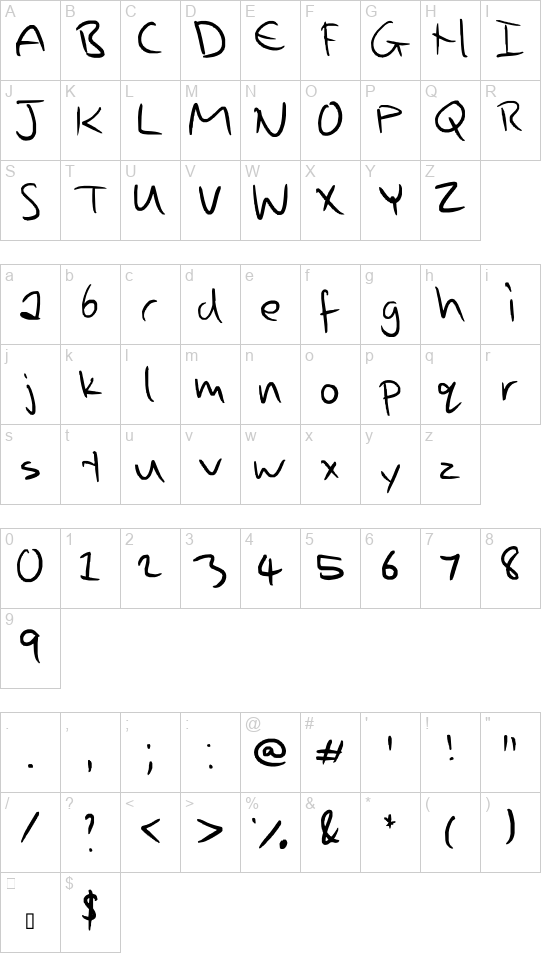
My Handwriting Font
My Handwriting Font - Within that broad category you’ll find a range of styles that reflects the. Web create your unique font from your handwriting for your notes using handwrittner and apply it to the text. Creating your own font has never been easier. August 07, 2016 view all glyphs (141). Web 228,908 downloads (38 yesterday) 100% free download my_handwriting.ttf note of the author my ugly handwriting. As the name suggests, handwritten fonts are fonts that look like they were written by hand, usually with a pen or marker. Go make your own handwriting as a font! Your own handwriting turned into your very own font;. Create handwriting homework, handwriting text, lectures,. Web yourfonts.com is an online font generator that allows you to create your own opentype fonts within a couple of minutes.
Web create your unique font from your handwriting for your notes using handwrittner and apply it to the text. Go make your own handwriting as a font! Within that broad category you’ll find a range of styles that reflects the. Your own handwriting turned into your very own font;. As the name suggests, handwritten fonts are fonts that look like they were written by hand, usually with a pen or marker. Web yourfonts.com is an online font generator that allows you to create your own opentype fonts within a couple of minutes. August 07, 2016 view all glyphs (141). Creating your own font has never been easier. Web get started free transform your handwriting or calligraphy into a font! Create handwriting homework, handwriting text, lectures,.
Web yourfonts.com is an online font generator that allows you to create your own opentype fonts within a couple of minutes. Web create your unique font from your handwriting for your notes using handwrittner and apply it to the text. Web get started free transform your handwriting or calligraphy into a font! August 07, 2016 view all glyphs (141). Your own handwriting turned into your very own font;. Create handwriting homework, handwriting text, lectures,. Within that broad category you’ll find a range of styles that reflects the. As the name suggests, handwritten fonts are fonts that look like they were written by hand, usually with a pen or marker. With your own font you can create genuine personal designs and calligraphic artwork. Web 228,908 downloads (38 yesterday) 100% free download my_handwriting.ttf note of the author my ugly handwriting.
Web yourfonts.com is an online font generator that allows you to create your own opentype fonts within a couple of minutes. Web 228,908 downloads (38 yesterday) 100% free download my_handwriting.ttf note of the author my ugly handwriting. Create handwriting homework, handwriting text, lectures,. With your own font you can create genuine personal designs and calligraphic artwork. Creating your own font.
Creating your own font has never been easier. Within that broad category you’ll find a range of styles that reflects the. Web 228,908 downloads (38 yesterday) 100% free download my_handwriting.ttf note of the author my ugly handwriting. Go make your own handwriting as a font! Your own handwriting turned into your very own font;.
Your own handwriting turned into your very own font;. Web create your unique font from your handwriting for your notes using handwrittner and apply it to the text. Go make your own handwriting as a font! Web 228,908 downloads (38 yesterday) 100% free download my_handwriting.ttf note of the author my ugly handwriting. Within that broad category you’ll find a range.
As the name suggests, handwritten fonts are fonts that look like they were written by hand, usually with a pen or marker. Web get started free transform your handwriting or calligraphy into a font! Web yourfonts.com is an online font generator that allows you to create your own opentype fonts within a couple of minutes. Web create your unique font.
As the name suggests, handwritten fonts are fonts that look like they were written by hand, usually with a pen or marker. Web create your unique font from your handwriting for your notes using handwrittner and apply it to the text. Create handwriting homework, handwriting text, lectures,. Web get started free transform your handwriting or calligraphy into a font! Your.
Within that broad category you’ll find a range of styles that reflects the. As the name suggests, handwritten fonts are fonts that look like they were written by hand, usually with a pen or marker. Your own handwriting turned into your very own font;. Web yourfonts.com is an online font generator that allows you to create your own opentype fonts.
Create handwriting homework, handwriting text, lectures,. Your own handwriting turned into your very own font;. As the name suggests, handwritten fonts are fonts that look like they were written by hand, usually with a pen or marker. Web get started free transform your handwriting or calligraphy into a font! With your own font you can create genuine personal designs and.
As the name suggests, handwritten fonts are fonts that look like they were written by hand, usually with a pen or marker. Your own handwriting turned into your very own font;. Create handwriting homework, handwriting text, lectures,. Within that broad category you’ll find a range of styles that reflects the. Creating your own font has never been easier.
Go make your own handwriting as a font! Web get started free transform your handwriting or calligraphy into a font! Create handwriting homework, handwriting text, lectures,. With your own font you can create genuine personal designs and calligraphic artwork. Web create your unique font from your handwriting for your notes using handwrittner and apply it to the text.
Web yourfonts.com is an online font generator that allows you to create your own opentype fonts within a couple of minutes. As the name suggests, handwritten fonts are fonts that look like they were written by hand, usually with a pen or marker. Within that broad category you’ll find a range of styles that reflects the. Go make your own handwriting as a font!